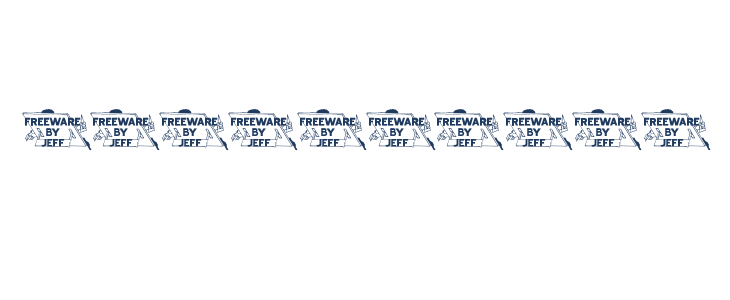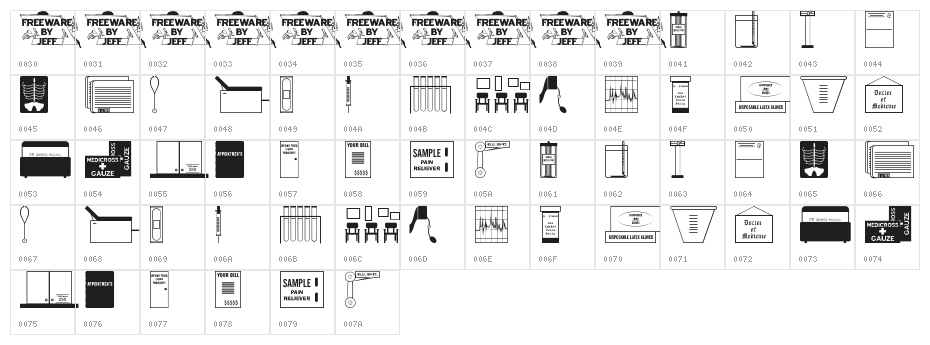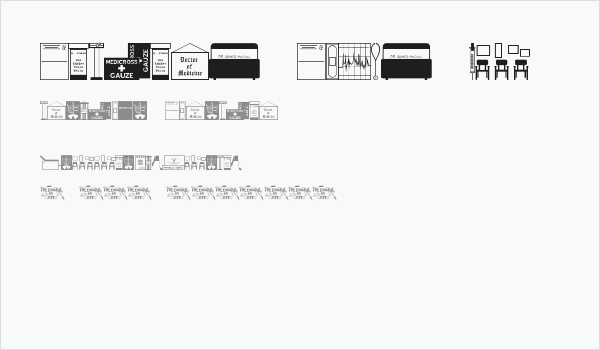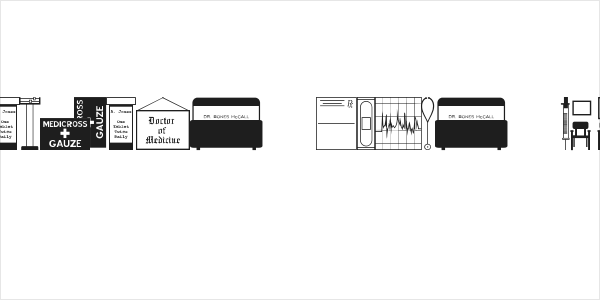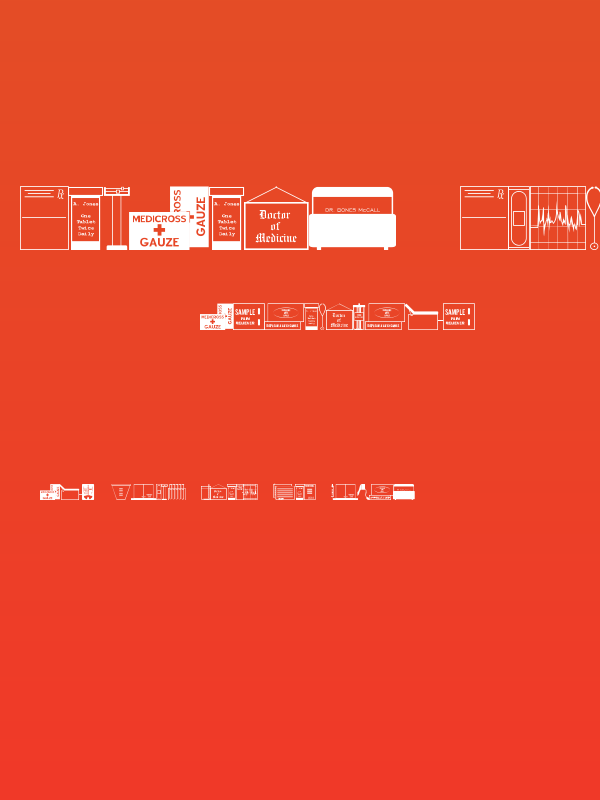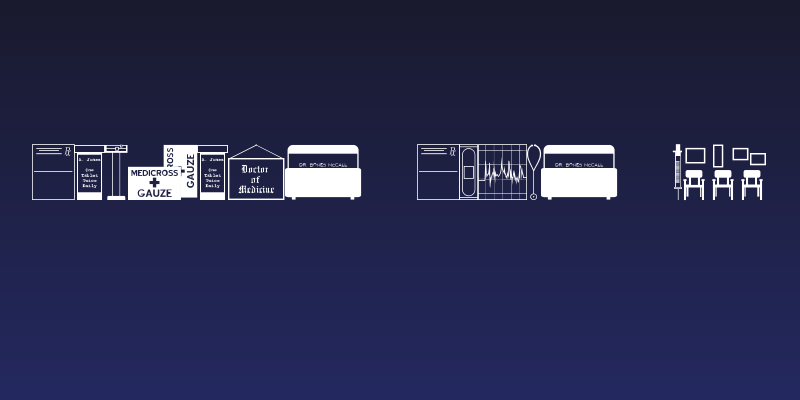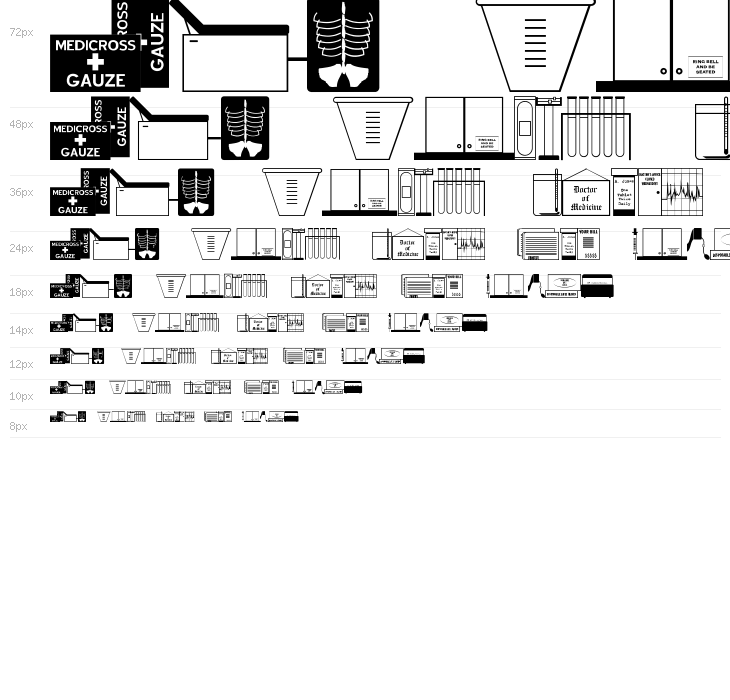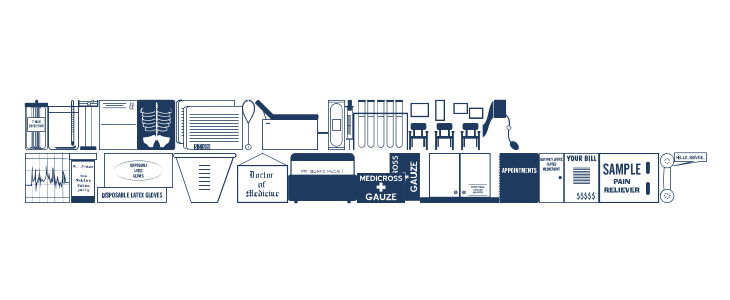
Doctor's Dings JL Font
Doctor's Dings JL Description
This is a novelty dingbat font featuring a variety of medical-themed icons and symbols. Each character is represented by a different medical-related image, such as stethoscopes, syringes, X-rays, and other healthcare equipment. The design is highly detailed and illustrative, making it suitable for projects that require a playful or thematic approach to medical or healthcare topics. The icons are monochromatic, providing a clean and professional look while maintaining a whimsical touch.
Use CaseLogos, Decorative elements, Thematic designs
Proposed ProjectsIdeal for healthcare-themed posters, educational materials, medical presentations, or any creative project that requires a playful yet professional medical touch.